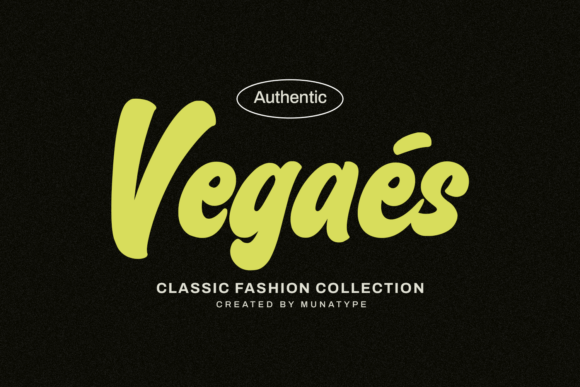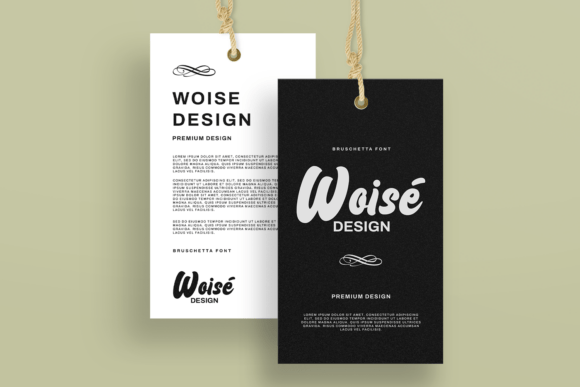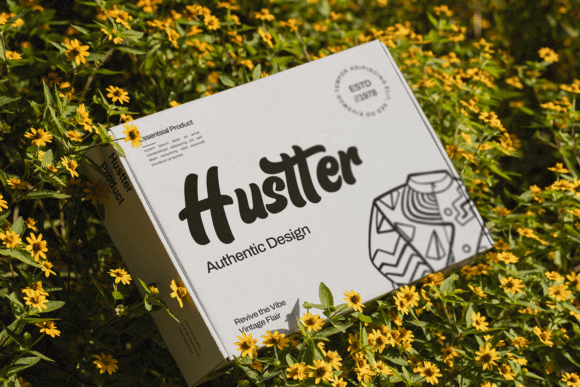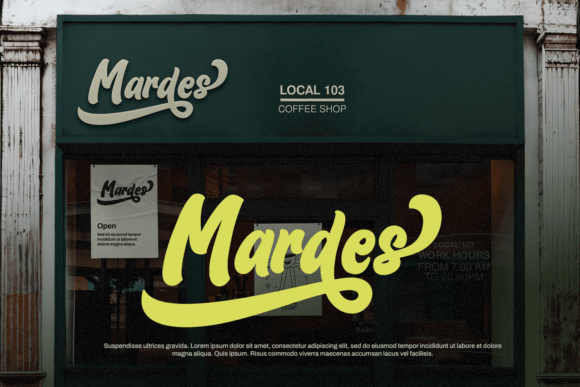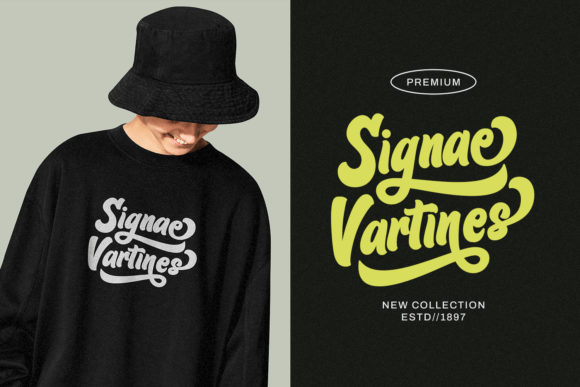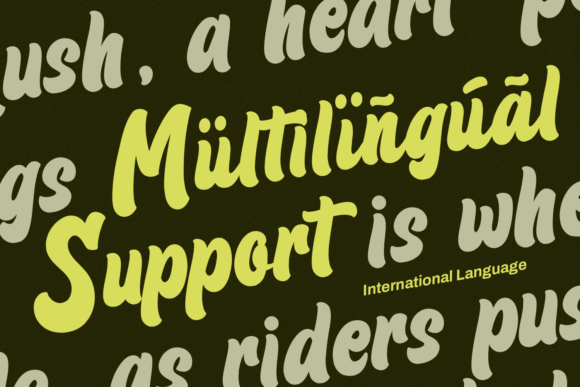
Introducing Bruschetta Font: The Perfect Blend of Vintage Charm and Retro Flair
Are you looking for a font that can add a touch of elegance and boldness to your design projects? Look no further than Bruschetta, a bold script handwritten display font that blends vintage charm with a retro flair. With its strong strokes and fluid curves, Bruschetta brings a sense of character and personality to any design, while maintaining a handcrafted feel.
A Perfect Balance of Elegance and Boldness
Bruschetta is perfectly balanced between elegance and boldness, making it an ideal font for designers who want to capture attention and add an authentic, timeless touch to their creative work. Whether you’re working on a seasonal or festive theme, such as Christmas, New Year, Easter, Winter, or Thanksgiving, Bruschetta shines with its dynamic presence.
Designed with versatility in mind, Bruschetta is a font that can be used across various design projects. Its bold script form ensures it stands out while still feeling warm and inviting, making it ideal for:
- Signature-style branding
- Retro-inspired packaging
- Decorative crafts
- Embroidery projects
- Festive greeting cards
Endless Customization Possibilities
One of the standout features of Bruschetta is its variety of alternate characters and stylish swashes. These decorative flourishes allow you to enhance your typography with graceful, flowing accents, perfect for crafting beautiful and unique designs. With Bruschetta, you can add a personal touch to your work and make it truly special.
Key Features of Bruschetta Font
- Bold Script Handwritten Display Font: Bruschetta is a bold script font that makes a statement with its strong strokes and fluid curves.
- Vintage Charm with a Retro Flair: The font blends vintage charm with a retro flair, making it perfect for designers who want to add a touch of nostalgia to their work.
- Handcrafted Feel: Bruschetta maintains a handcrafted feel, giving it a unique and authentic touch.
- Perfectly Balanced: The font is perfectly balanced between elegance and boldness, making it ideal for a wide range of design projects.
- Versatile: Bruschetta can be used across various design projects, from seasonal and festive themes to signature-style branding and decorative crafts.
- Alternate Characters and Swashes: The font features a variety of alternate characters and stylish swashes, allowing for endless customization possibilities.
Tips for Using Bruschetta Font
- Pair it with a Simple Font: Pair Bruschetta with a simple font to create a beautiful contrast and make your design stand out.
- Use it for Headings: Use Bruschetta for headings and titles to add a touch of elegance and boldness to your design.
- Experiment with Swashes: Experiment with the font’s swashes and alternate characters to add a personal touch to your design.
- Use it for Festive Themes: Use Bruschetta for festive themes, such as Christmas, New Year, and Easter, to add a touch of nostalgia and charm.
In conclusion, Bruschetta font is a versatile and elegant font that can add a touch of vintage charm and retro flair to any design project. With its strong strokes and fluid curves, Bruschetta brings a sense of character and personality to any design, while maintaining a handcrafted feel. Whether you’re a designer or a crafter, Bruschetta is a font that can help you create beautiful and unique designs that stand out.